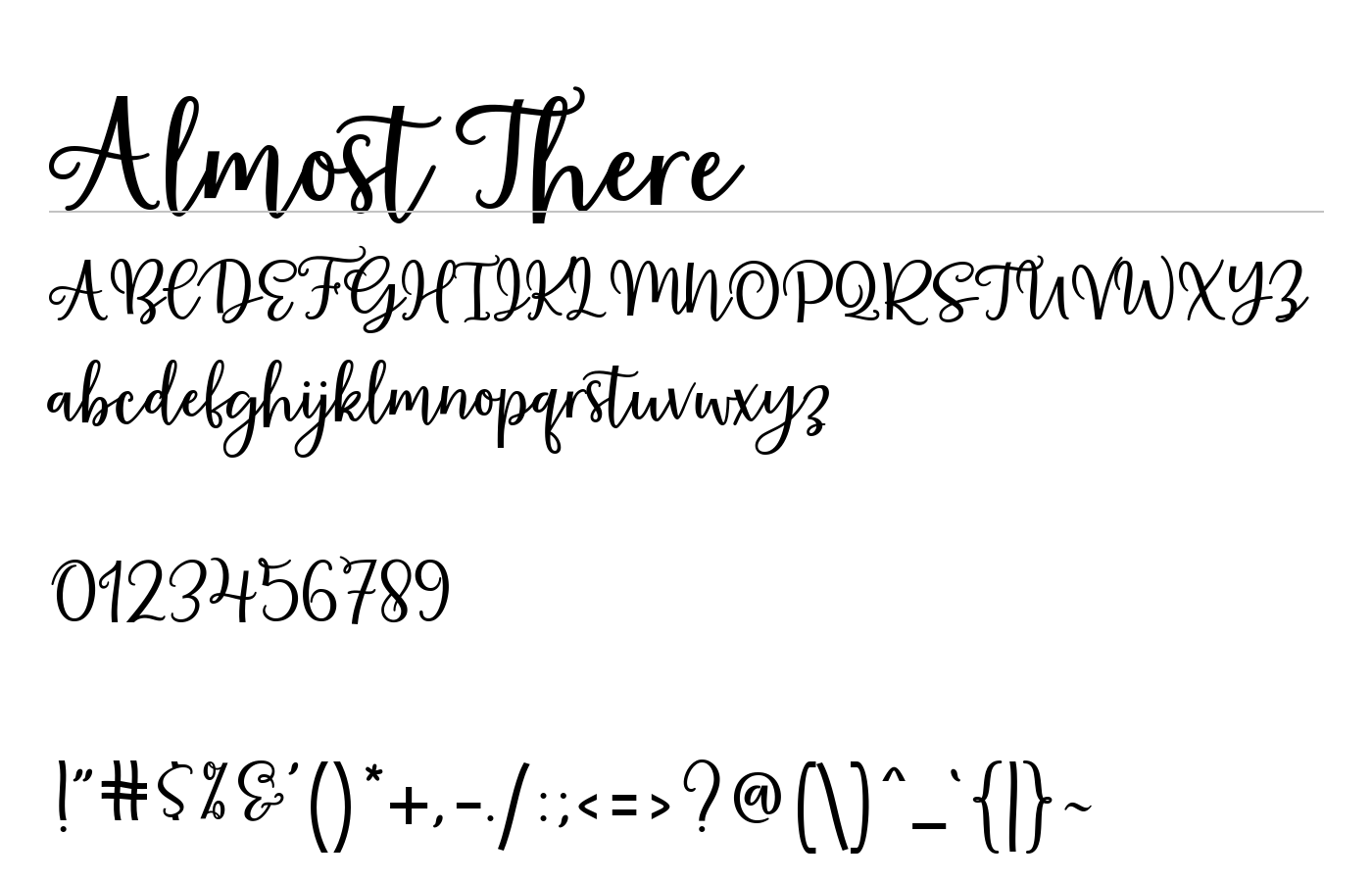
Almost There Font is an elegant, flowing script typeface with a modern calligraphic feel. Its slender strokes and graceful curves offer a sophisticated and friendly personality, making it ideal for invitations, branding, and creative headlines where a touch of charm and warmth is desired. This font works beautifully in projects seeking a stylish, hand-lettered look that remains readable and refined.
Almost There Font
About Almost There Font
| Font family | Almost There Font |
| Designer | Murzani |